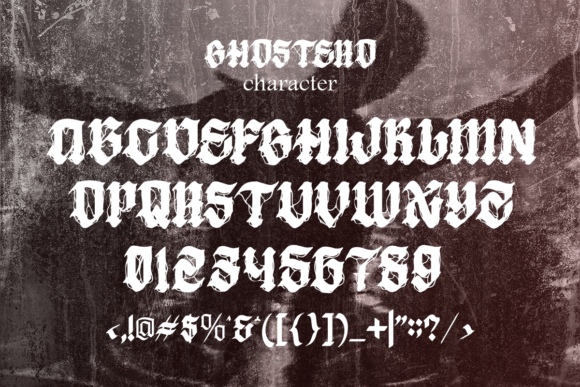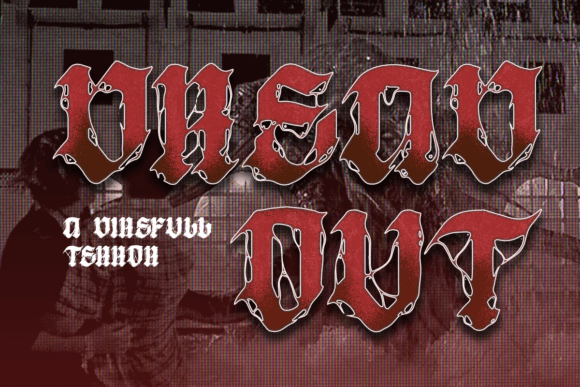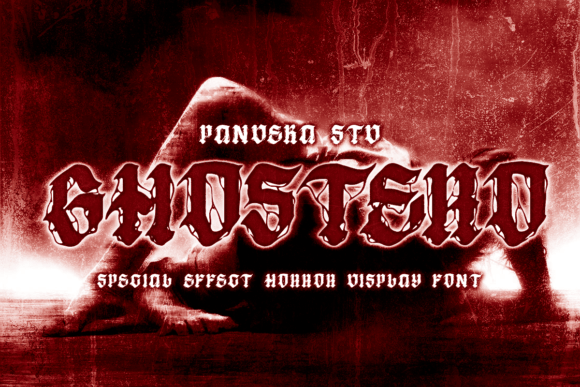
Ghostero Font
Ghostero Font is a striking and intricately detailed Horror Metal Display Font that will add a bold, edgy flair to your designs. Perfectly suited for intense and eerie projects, Ghostero is your go-to choice for creating powerful visuals that resonate with a dark, gothic atmosphere.